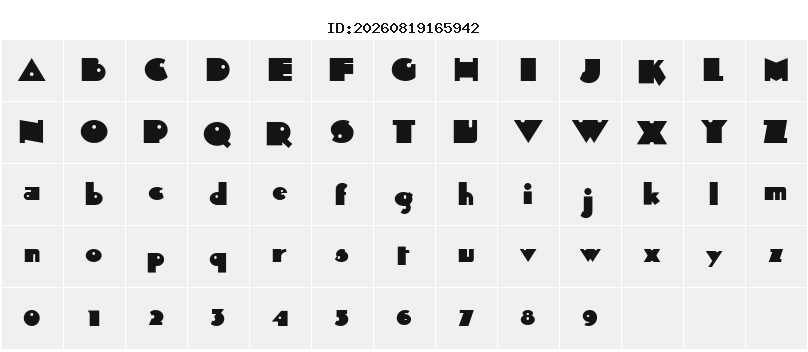
• Font Name: Sid The Kid NF
• Font ID: NickCurtis: Sid The Kid NF: 2006
• Full Font Name: Sid The Kid NF
• Designer: Nick Curtis
• Manufacturer: Nick Curtis
About Sid The Kid NF.ttf
Sid The Kid NF.ttf is a modern, elegant sans-serif font designed for ultimate readability and visual harmony. Perfect for branding, headlines, web design, and print materials.